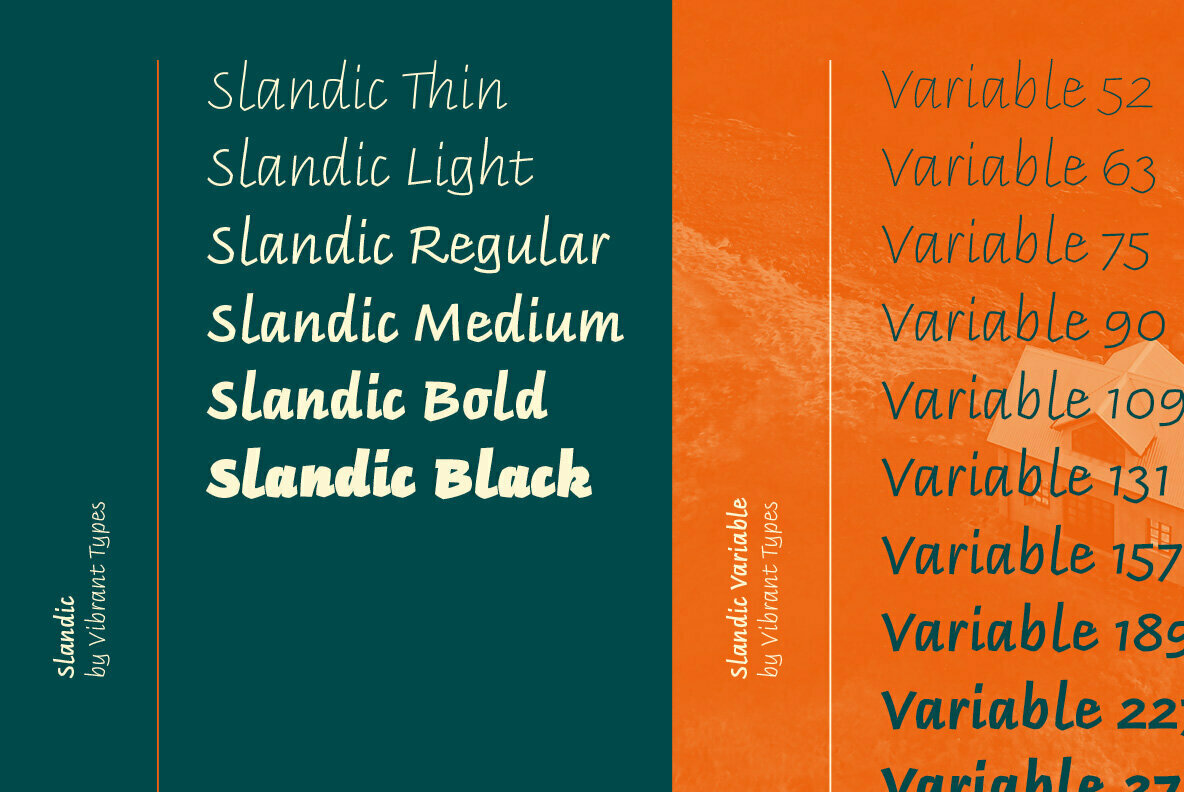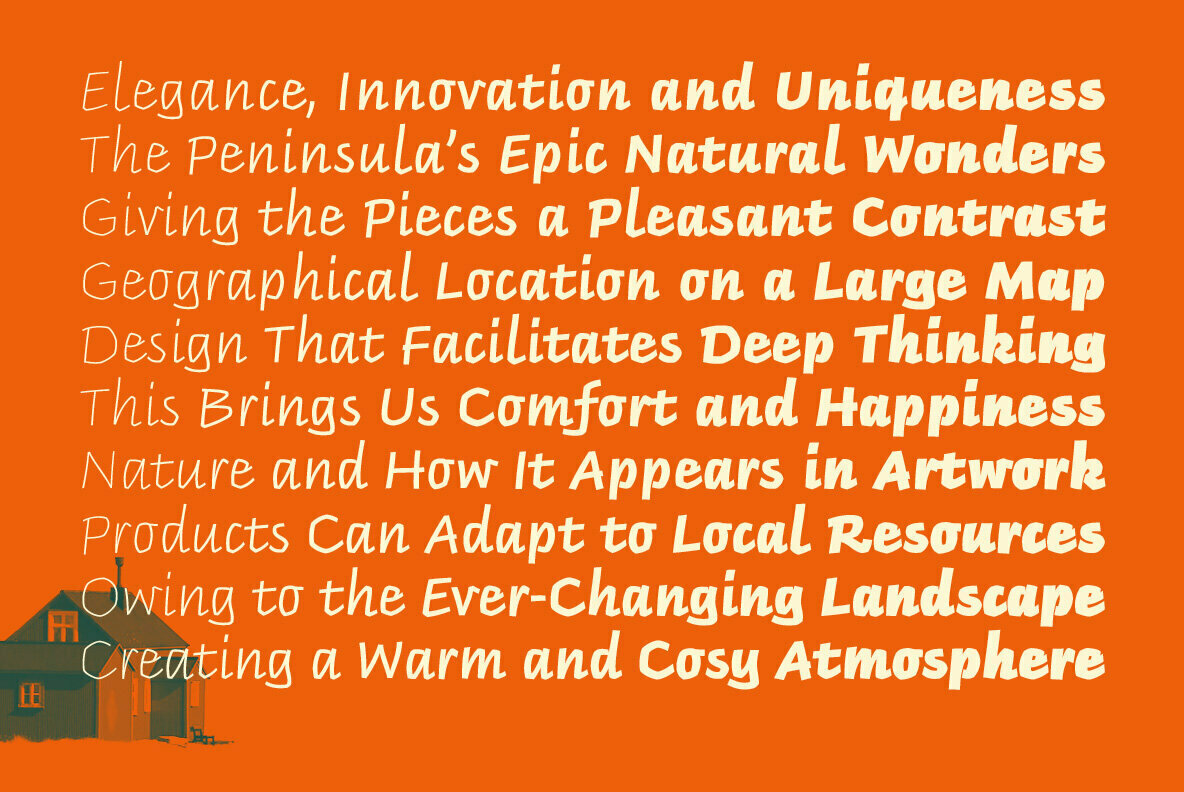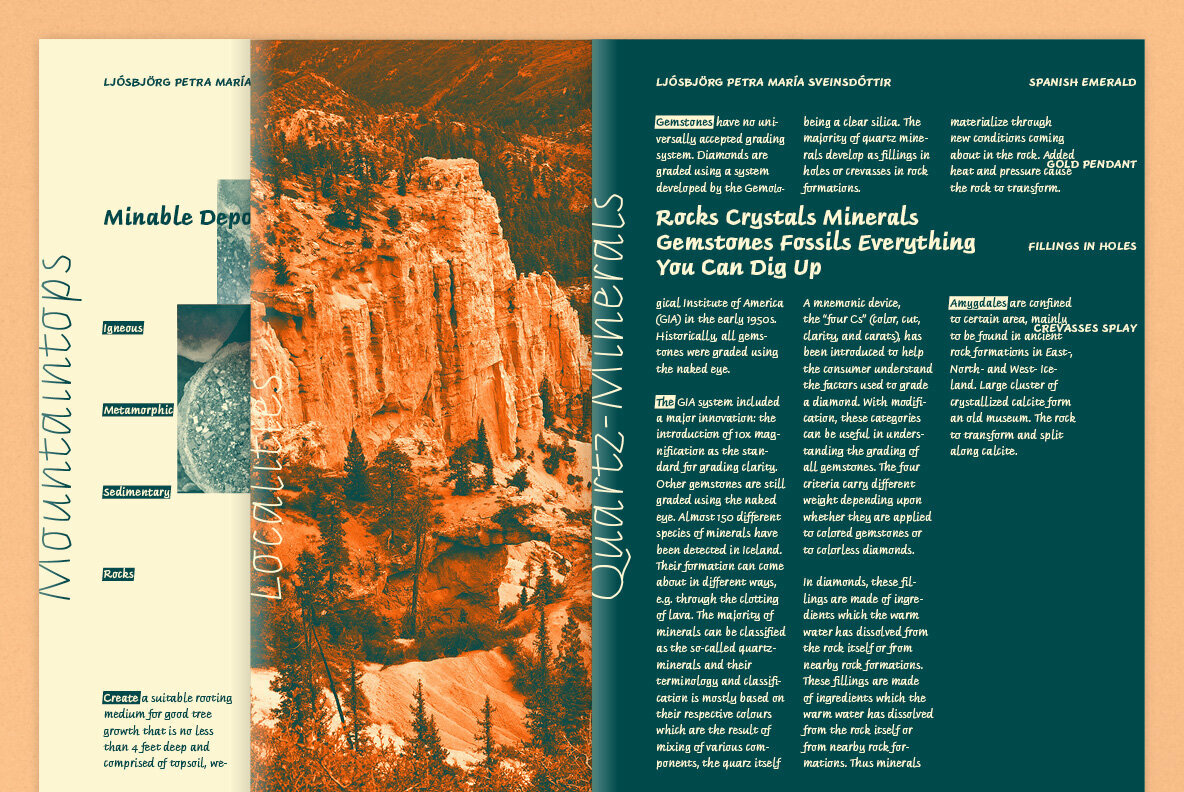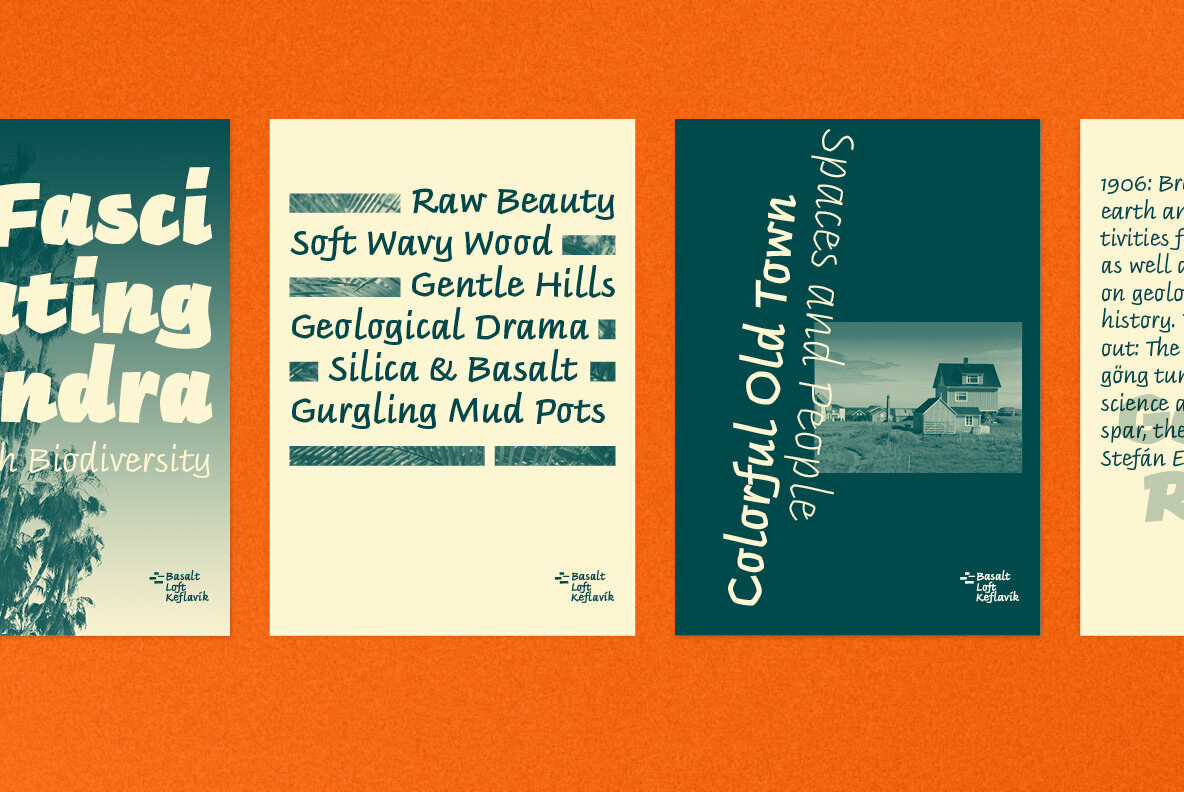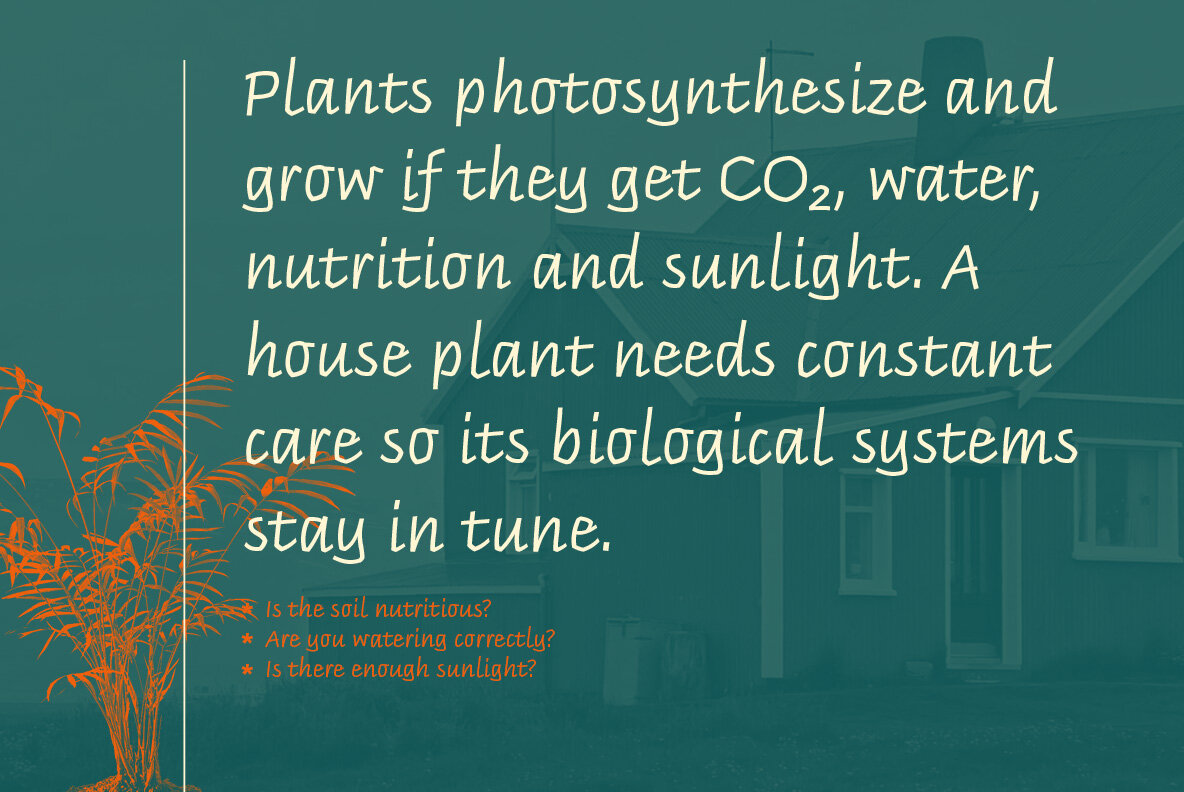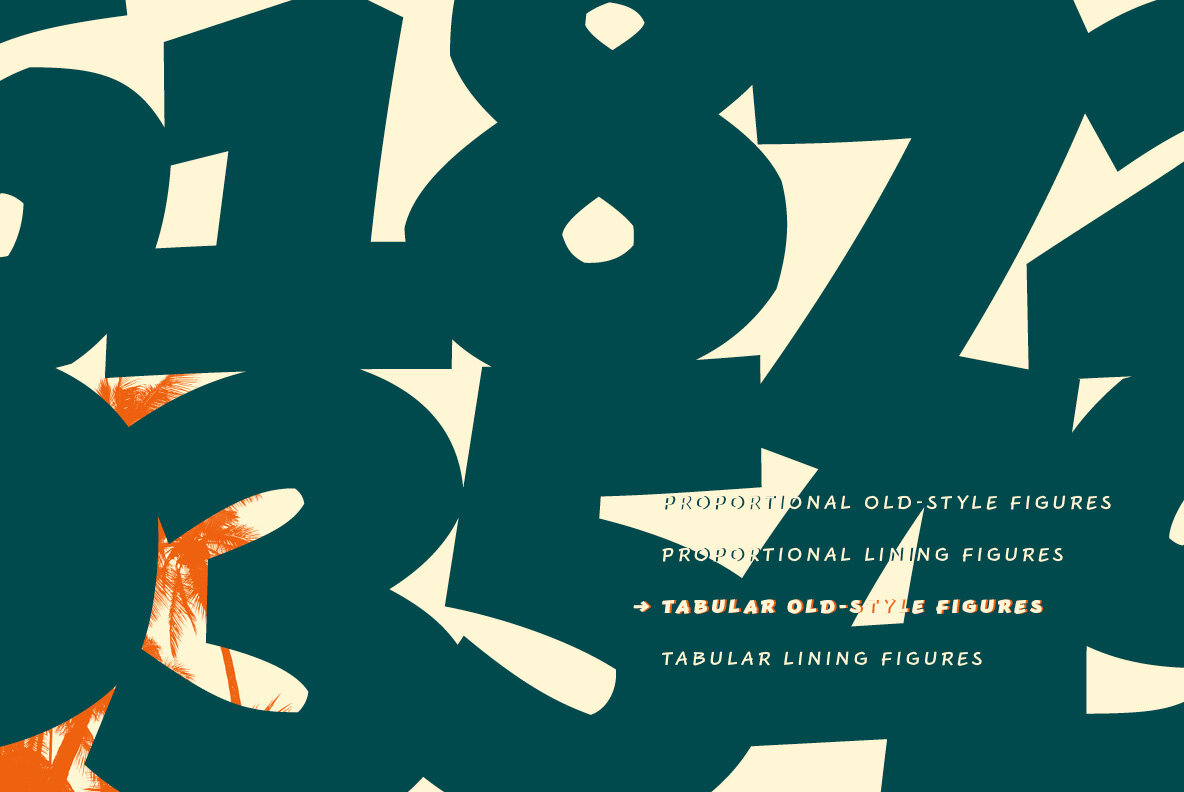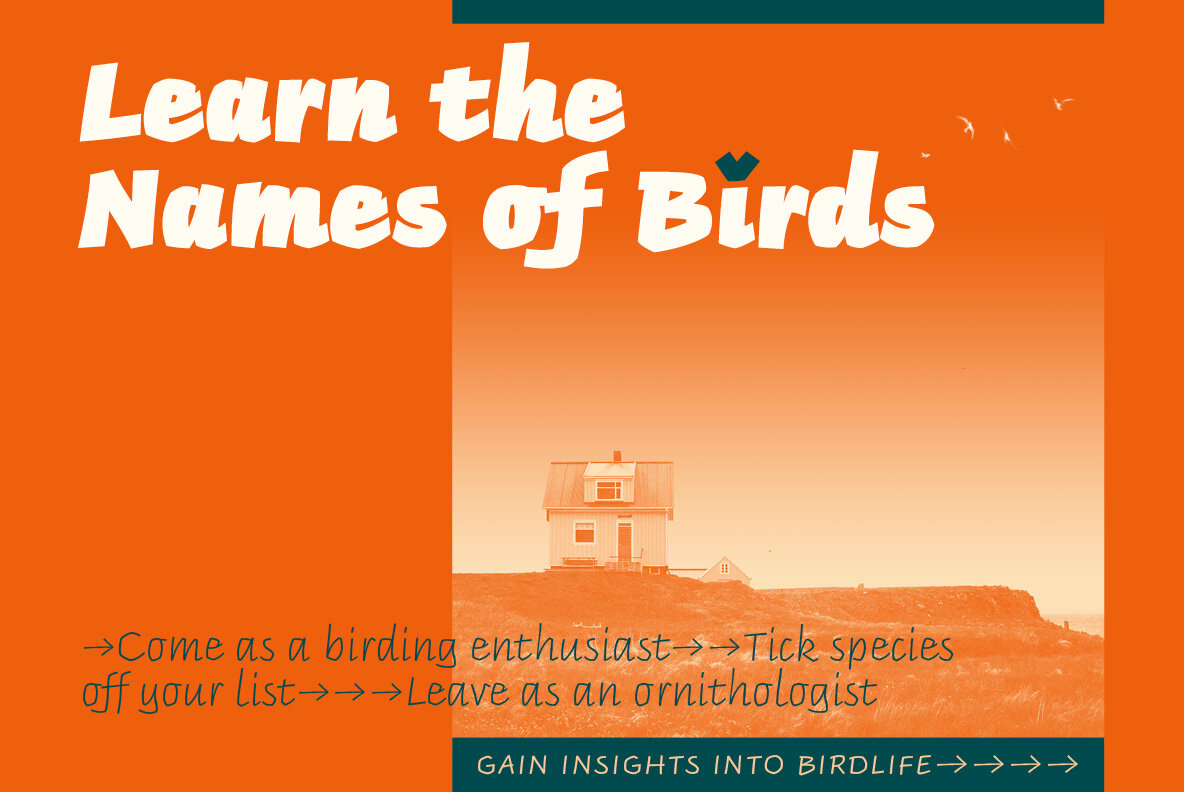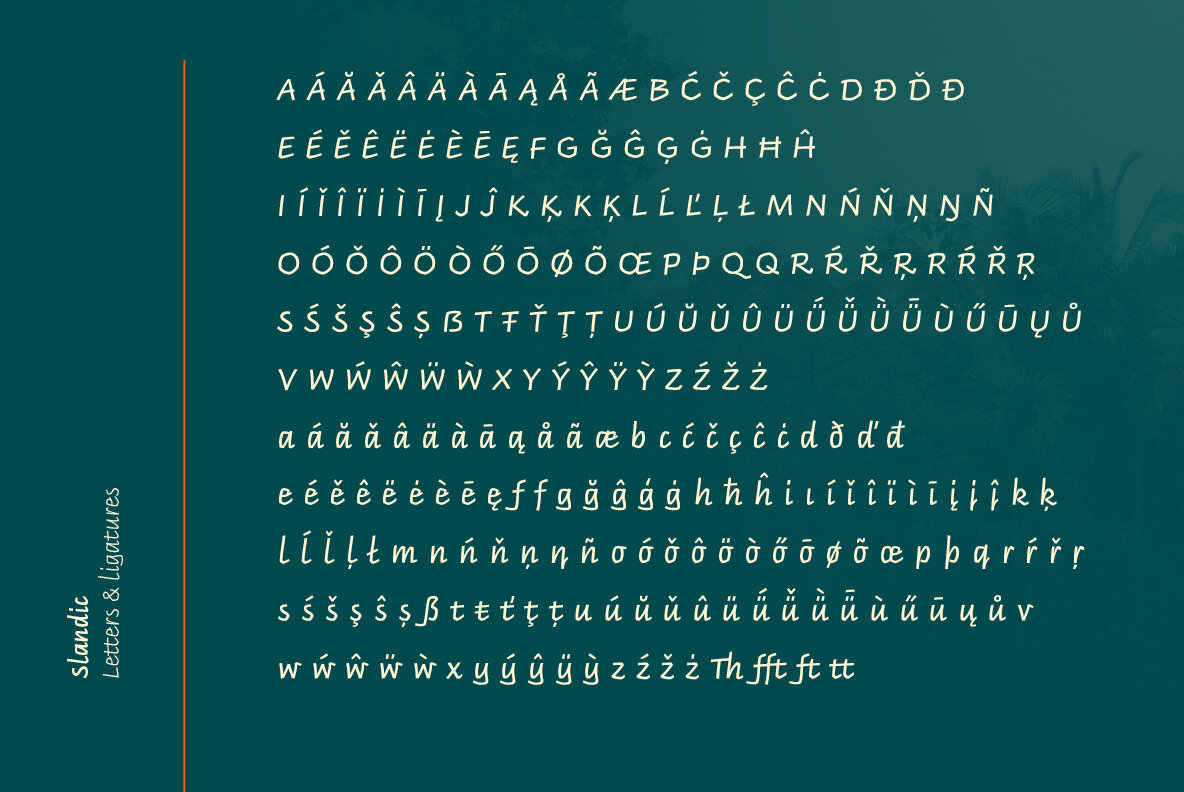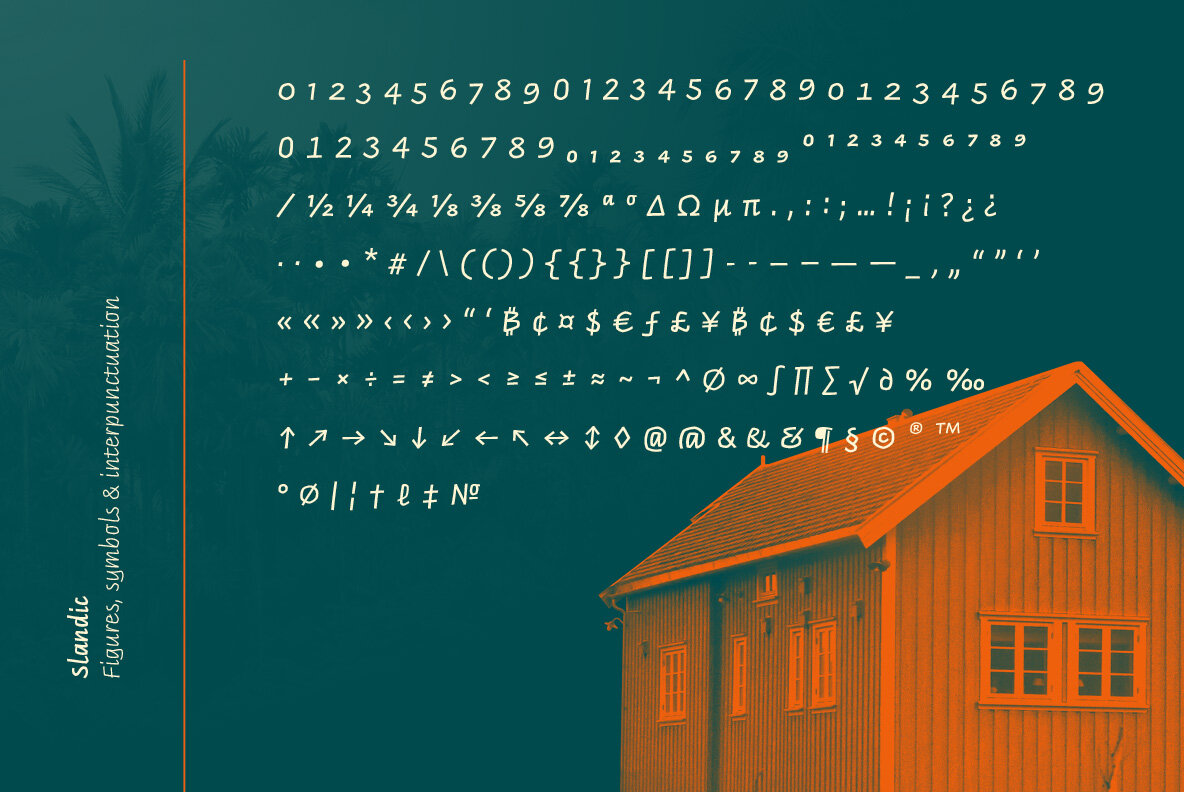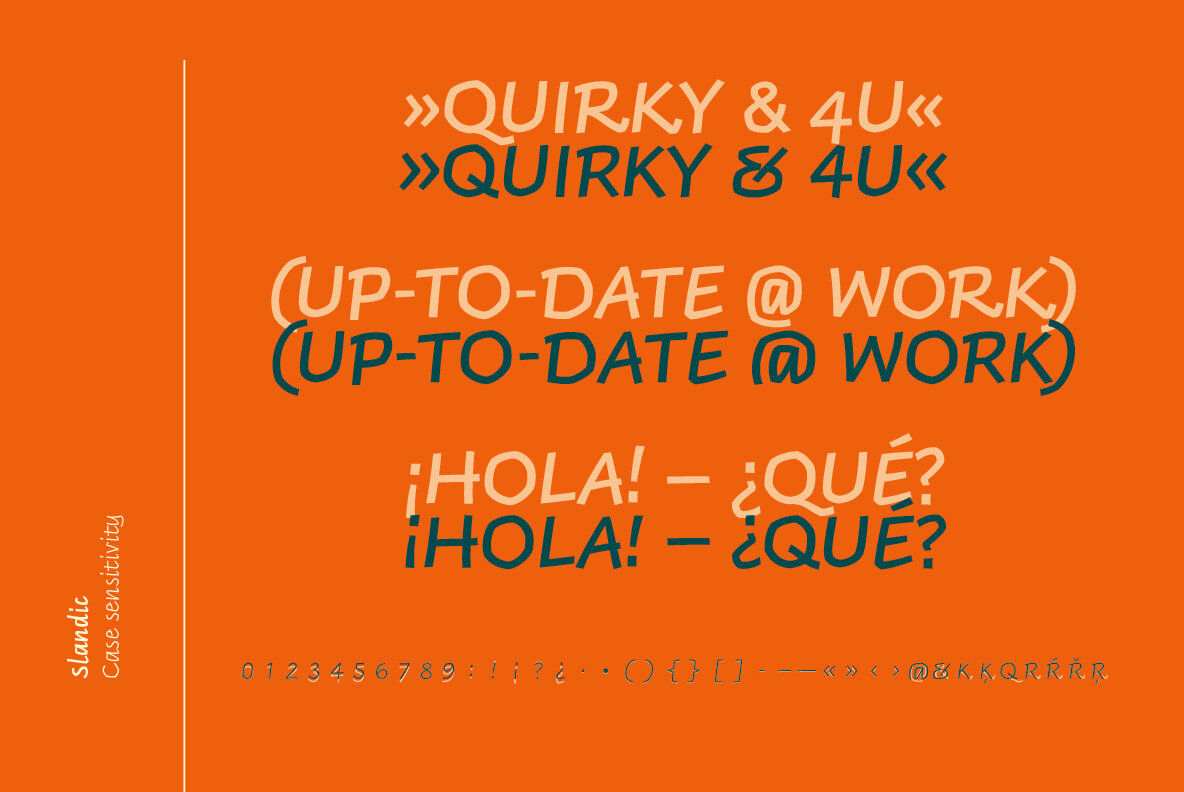
Headlines are transformed into clear-cut messages with the handwriting type family Slandic. Its robust appeal combines the elegance of script typefaces with the lightness of handwritten notes.
What makes the Slandic so playful is the synergy between the quite narrow lowercase letters and the wide uppercase letters. Therefore it might rather be an upright chancery italic of a humanist sans. You can see it very clearly in its sharp upward angles and its long-limbed ascenders. Its visual appeal sets a reliable tone. It is precisely balanced with a solid stroke contrast and confidently angular-shaped curves.
Slandic perfectly enhances exciting contrasting typography adding a personal note without giving it a comic spin.